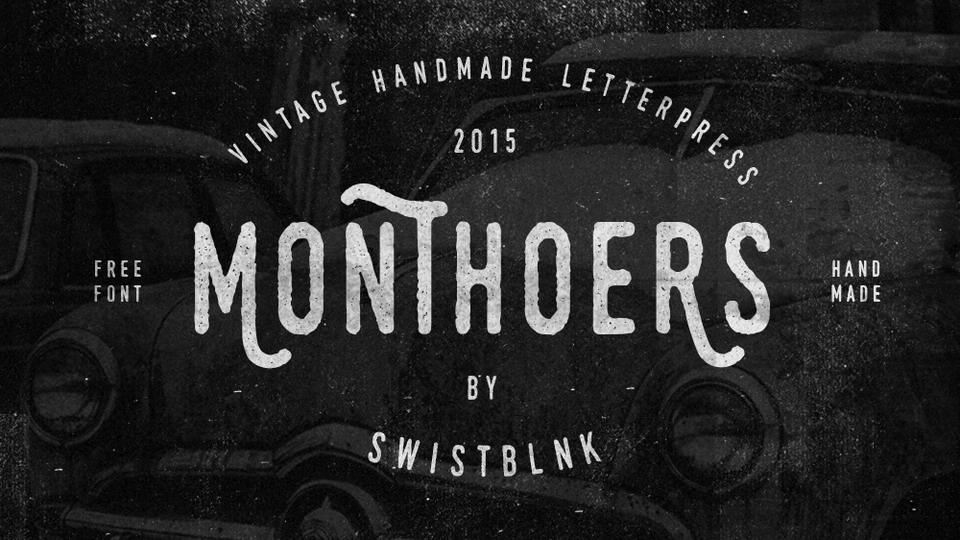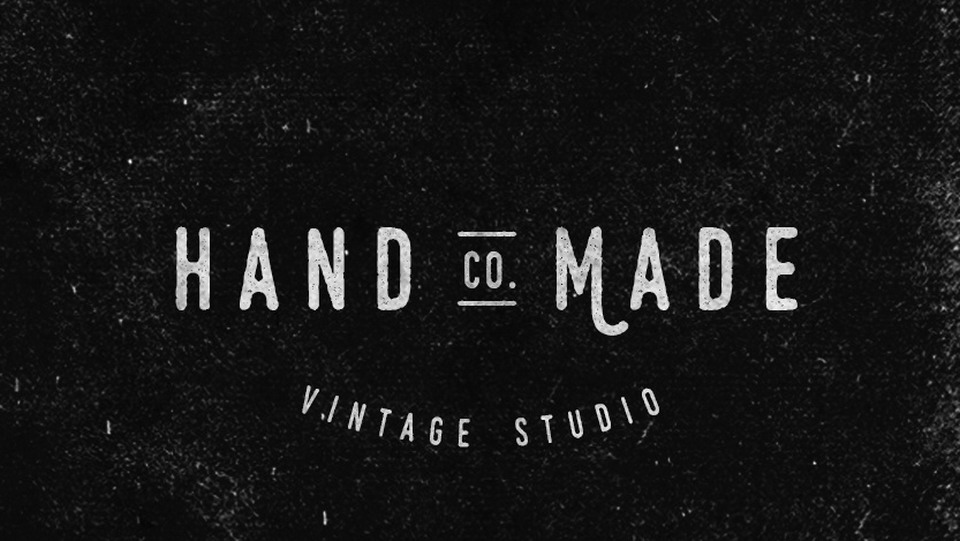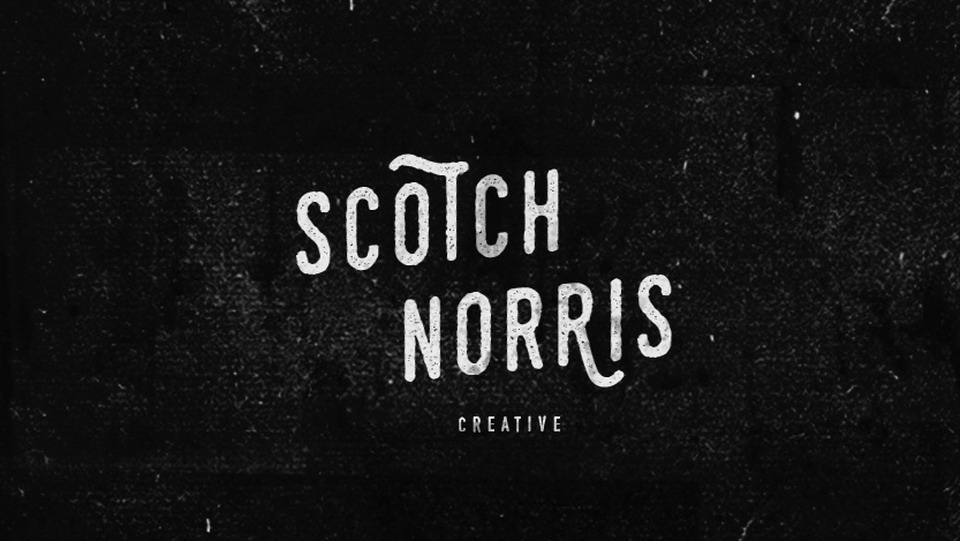
Monthoers is a handmade modern vintage textured display typeface, which is combining the style of classic typography with an modern handlettering style. In this version you can easily combine with this duo to create classic style.
Monthoers font is perfect for vintage inspired designs, labels, logos, posters, apparel prints, social media and more.